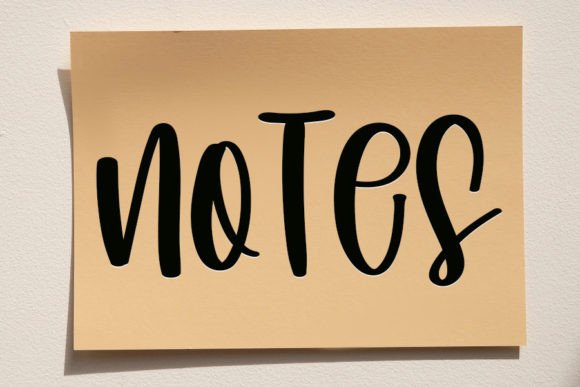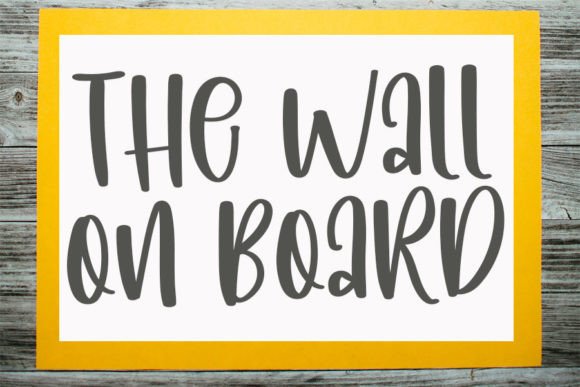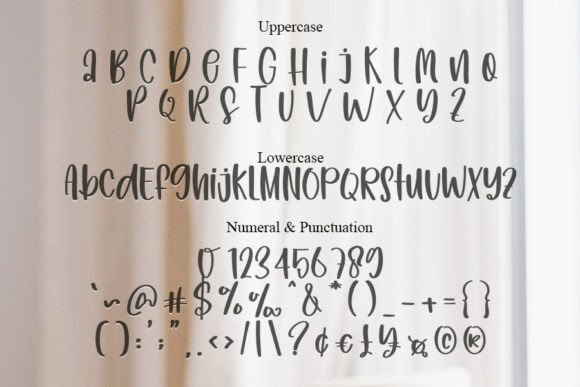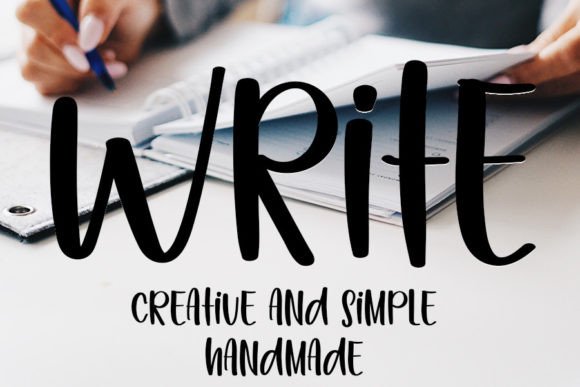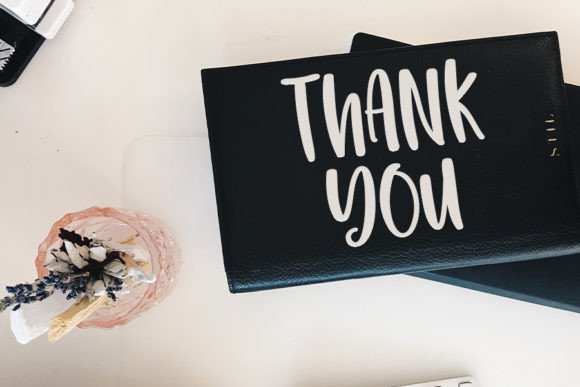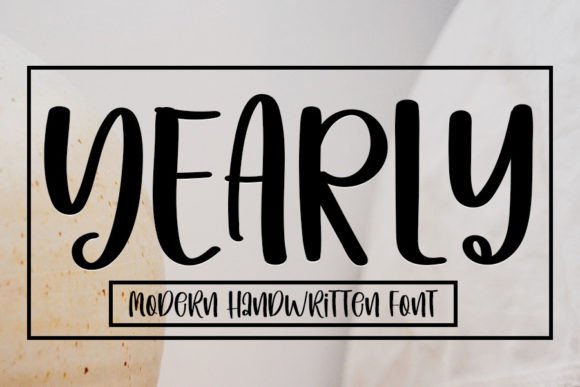
Yearly Font
A Trendy and Elegant Handwritten Typeface
Yearly is a fresh handwritten font that brings modern style to any project. Inspired by timeless calligraphy, this font combines graceful curves with contemporary design. Whether you’re creating logos, wedding invitations, or social media graphics, Yearly adds a refined touch that makes your work feel special and professional.
Its versatile style adapts beautifully to both personal and commercial uses.
Yearly is a font you’ll reach for time and again. It’s perfect for invitations, save-the-date cards, and thank you notes. The elegant script creates a warm, memorable feeling perfect for life’s most important events.
In branding, Yearly shines on logos, product packaging, and business cards. The handwritten look feels upscale yet approachable, helping your brand stand out.
This font also works wonderfully for social media graphics, blog headers, and website banners. The stylish shapes and balanced letters keep your content looking fresh and cohesive.
Yearly is also ideal for posters, art prints, and custom gifts. Its smooth lines and polished details give any message a professional, sophisticated look.
Even with its flowing style, Yearly stays clear and legible at every size. Smooth connections and consistent spacing help your text look neat, whether it’s used in large headlines or small captions.
For clean, modern layouts, pair Yearly with a minimalist sans-serif font. Use Yearly for titles and highlights, and the sans-serif for body text. This pairing keeps your designs organized while showing off the font’s elegant personality.
To help Yearly stand out, use neutral backgrounds and soft color palettes. Shades like ivory, blush, and muted gray let the script shine without competing with other elements.
When designing invitations or packaging, consider adding simple icons or delicate lines that match the font’s contemporary feel.
On social media, embrace white space to keep your posts clean and your text easy to read.
Think about the mood you want to create. Yearly is perfect for projects that should feel refined, warm, and timeless.
Yearly isn’t just another handwritten font—it’s a creative asset that brings elegance and style to any design. From professional branding to personal keepsakes, this font adapts effortlessly and adds a polished finish to every project.
Adding Yearly to your font collection means you’ll always have a versatile, beautiful option ready to go. Whether you’re working on logos, invitations, or digital content, this font helps every idea look special and memorable.